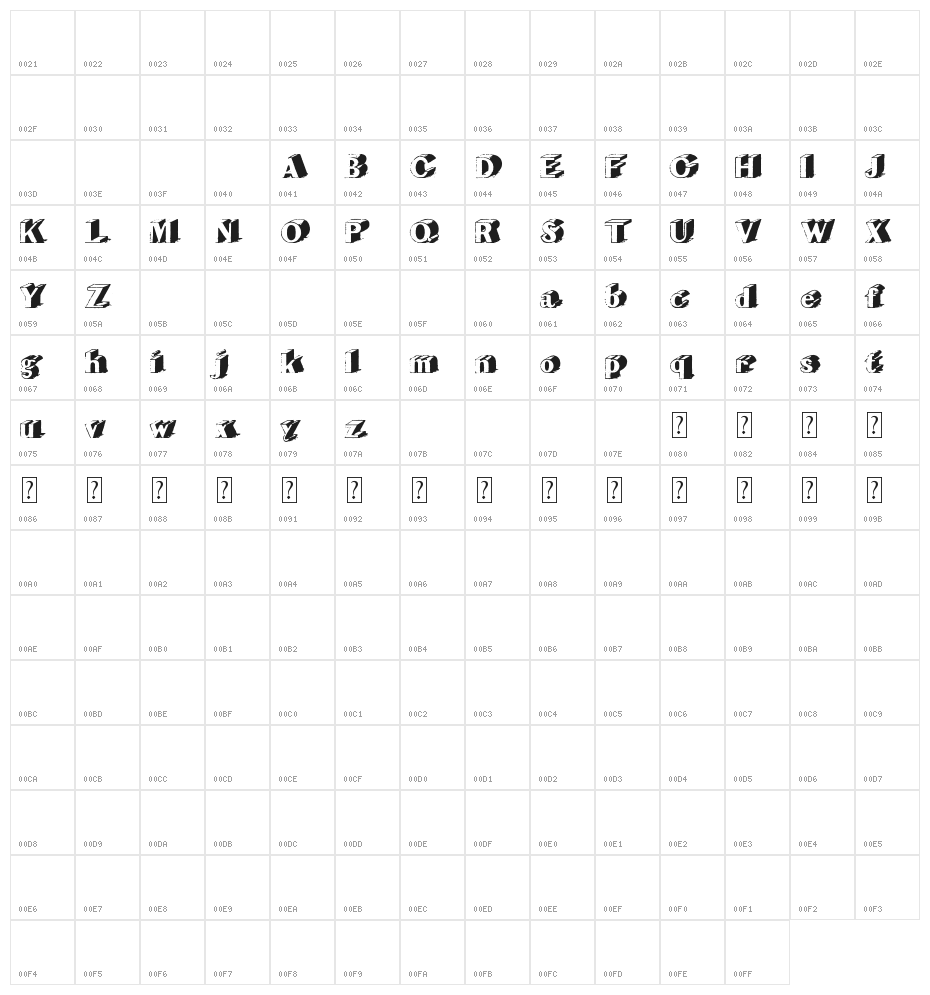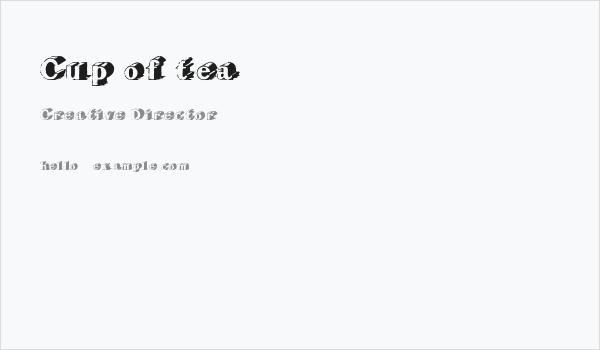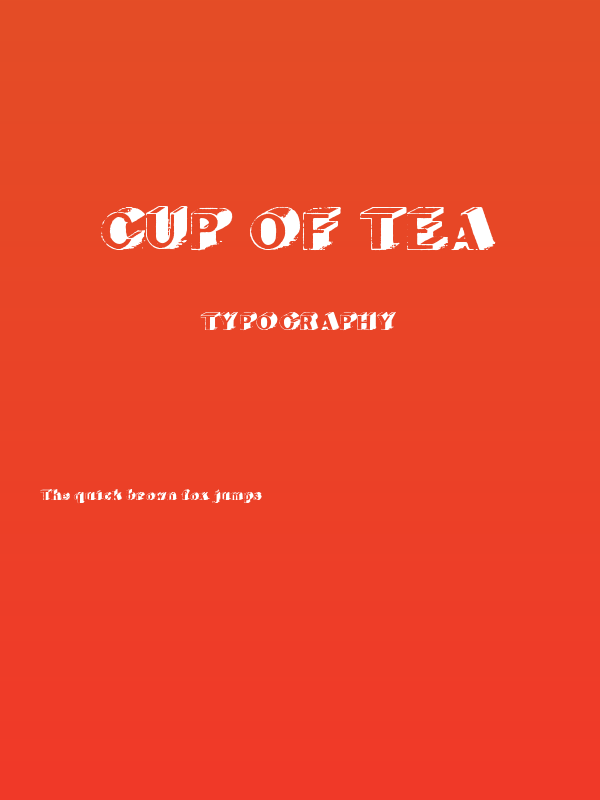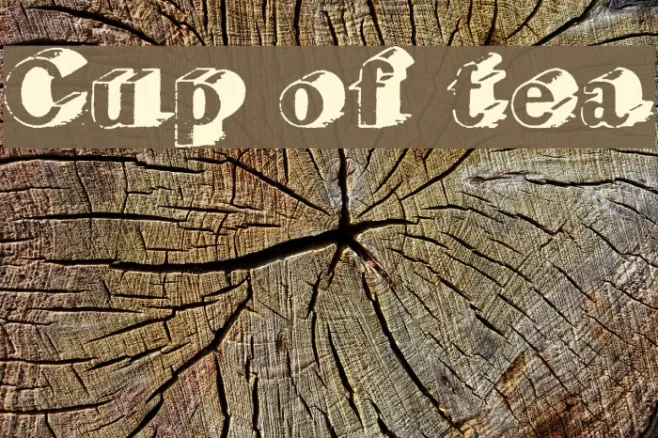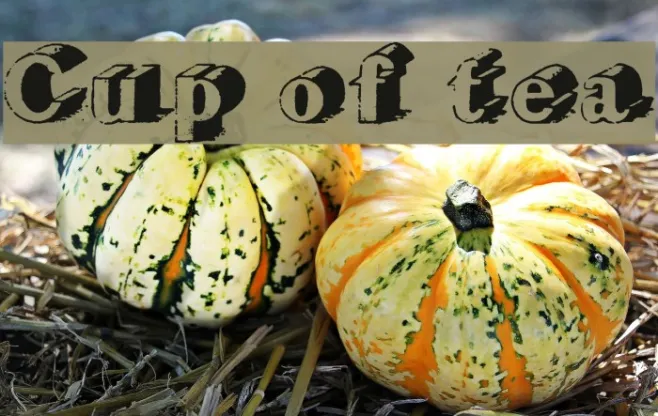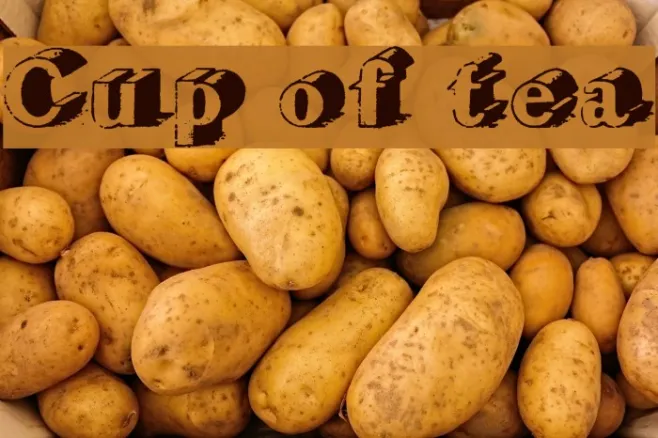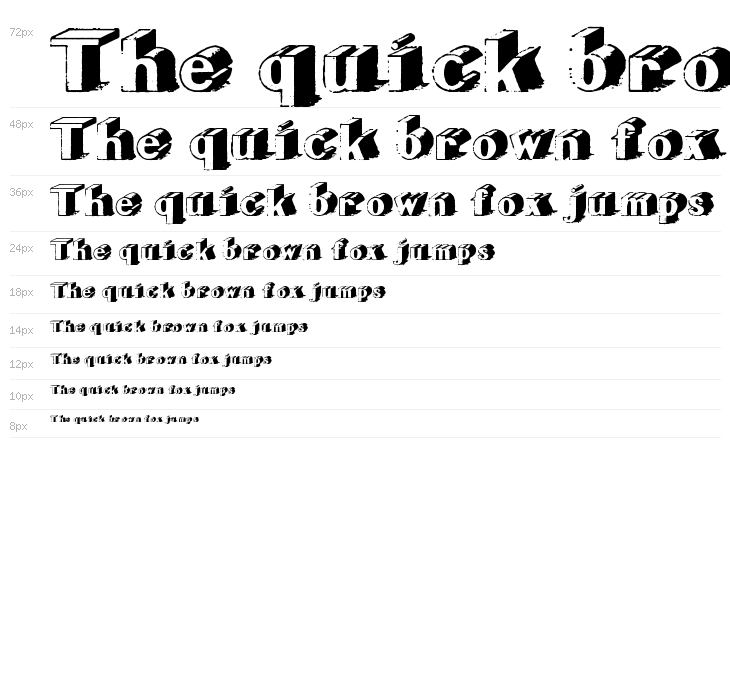
Cup of tea Font
Cup of tea Description
This font features a bold, three-dimensional style with a distressed texture, giving it a vintage and rugged appearance. The letters are uppercase and lowercase with a shadow effect that adds depth. The texture appears as if the letters have been worn or eroded, providing a unique, eye-catching look. The boldness of the font makes it stand out, while the distressed effect adds character and a sense of history. This combination of boldness and texture makes it suitable for projects that require a strong visual impact.
| Proposed Projects | Ideal for vintage-themed posters, logos, album covers, and branding that requires a strong, impactful aesthetic. |